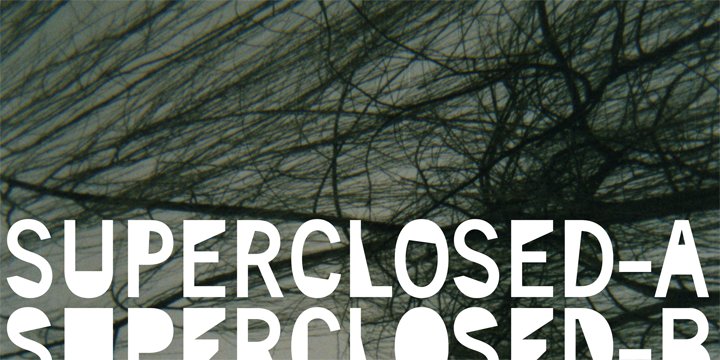
Superclosed™
Superclosed
Developed from Superbastone and projected to be used with all the weights of superbastone.
Superclosed is developed with darker letters obtained closing eyes and noses and modifing tails arms and legs.